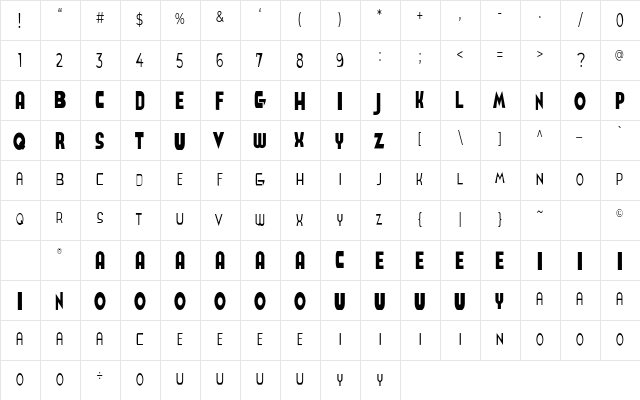
Schoenmaker Regular
| Foundry | Nubework |
| Designer | Iqbalfaizinm |
Design Context for Schoenmaker Typeface
Schoenmaker offers clean, dependable letterforms without strong stylistic allegiance, making it a practical choice for designers who need flexibility.